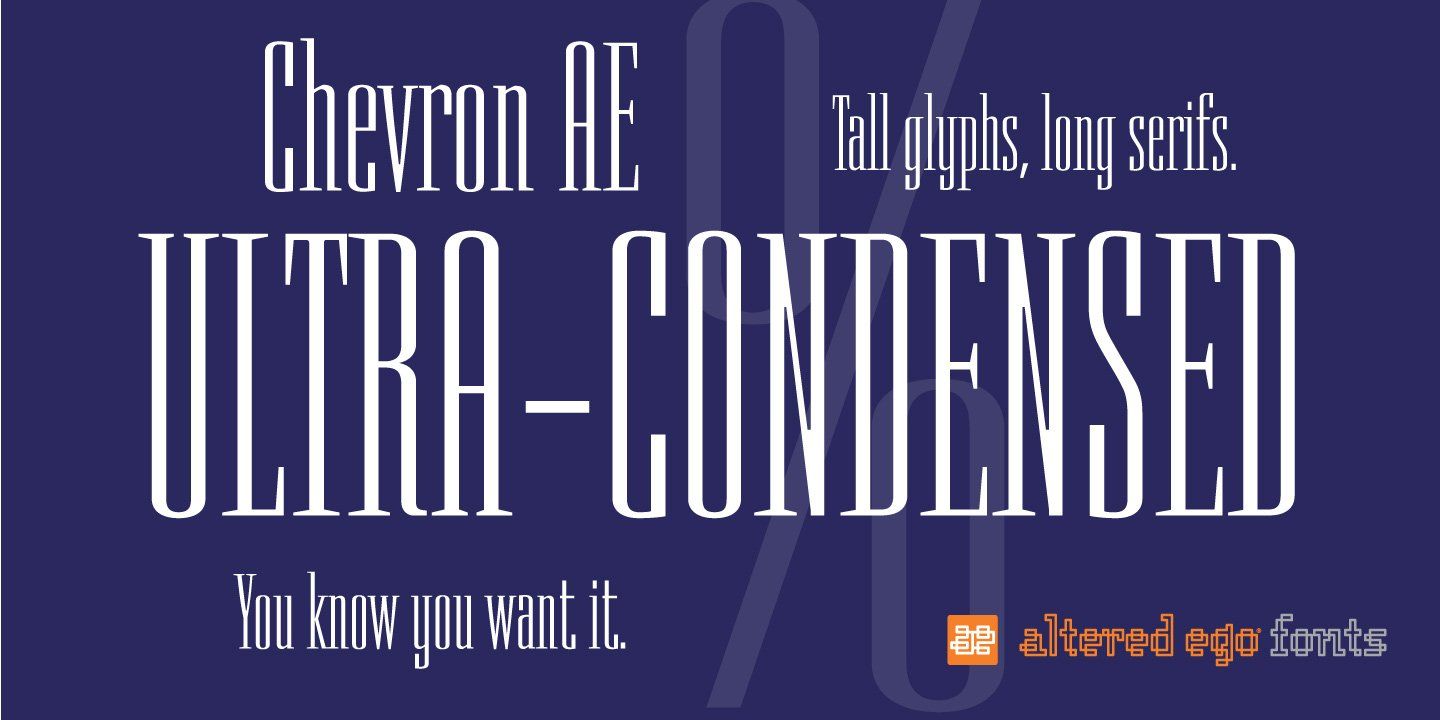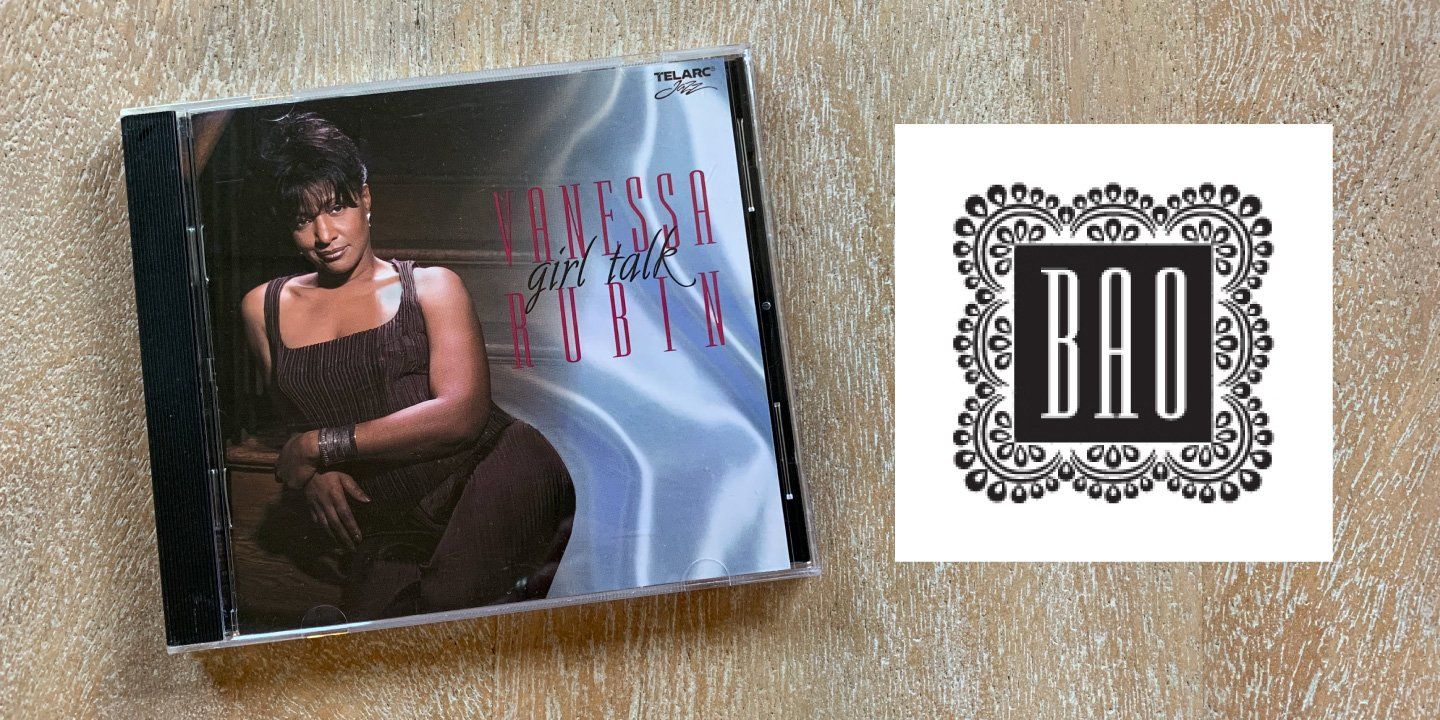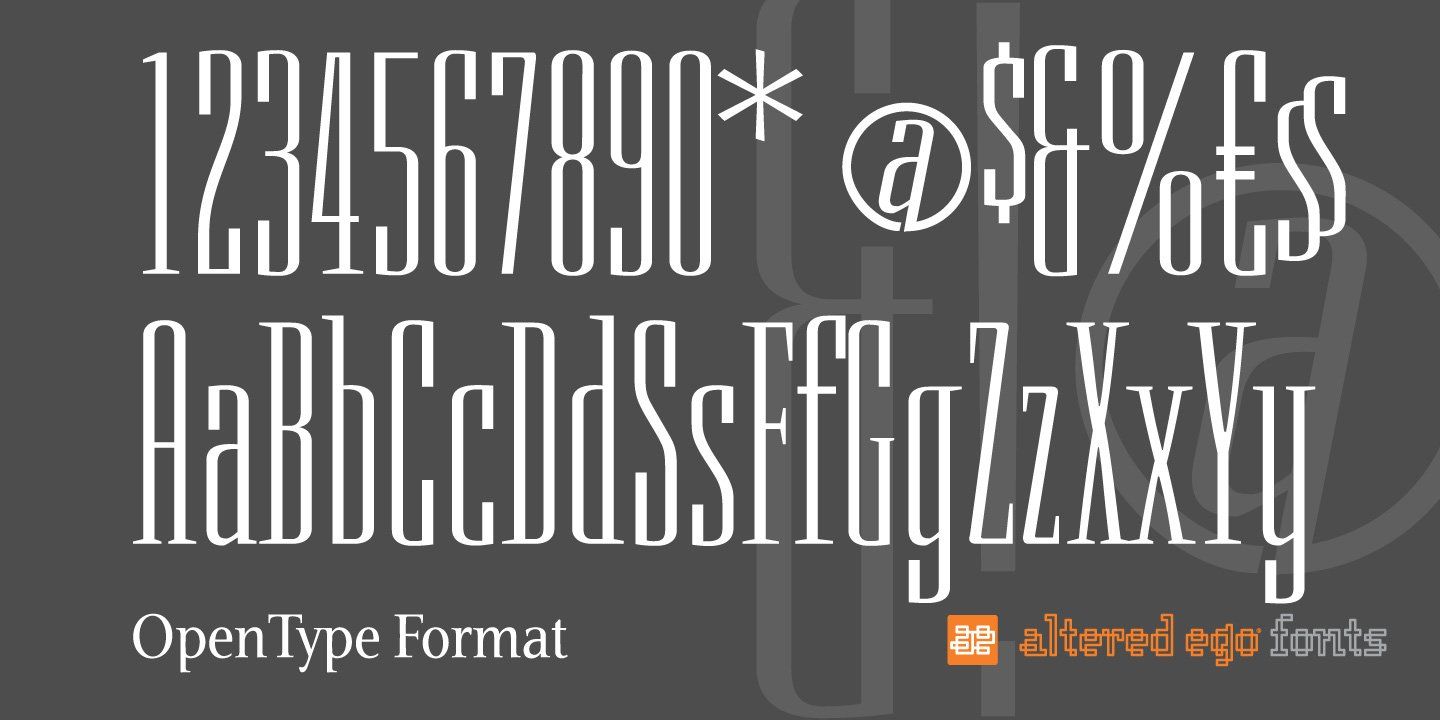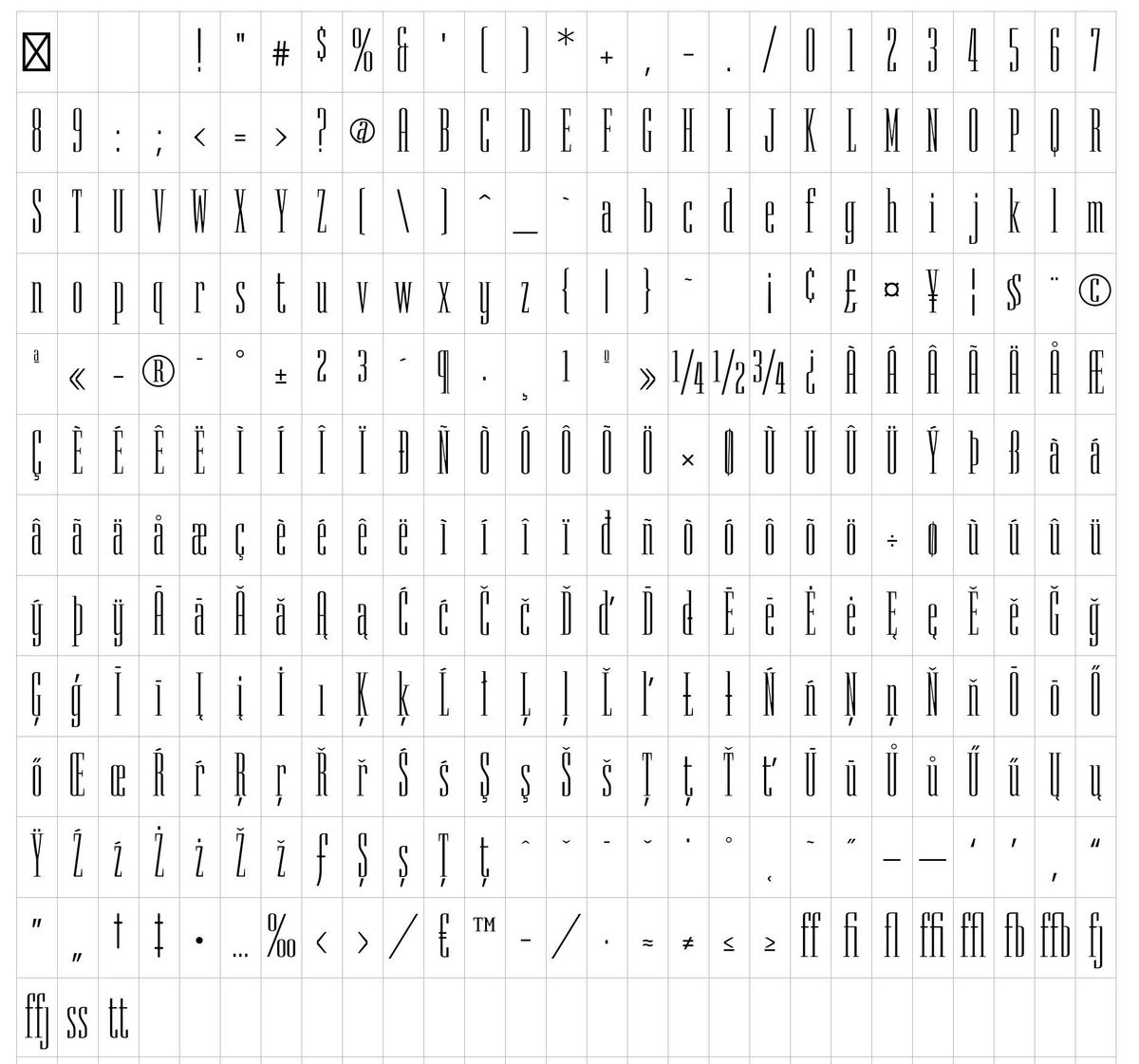
Altered Ego Chevron Font
Ultra-condensed serif typeface for packaging, publications, and branding
An ultra-condensed serif display font
Chevron is an ultra-condensed font that's great for books, packaging, movie posters and other designs that need a contemporary typeface, and when you don't have much room!
A Name Inspired by an iconic American Brand
Chevron AE is named after an heraldic symbol, and the shapes of the serifs reflect the distinctive chevron shape as well.
With its roots in art deco, try Chevron in places that demand an iconic typeface with chevron and wedge serifs.
How should you use it? It’s perfect for posters, packaging and advertising, CD covers and publications. Fully hinted and exquisitely kerned, Chevron will be one of your favorite faces for tall copy that need to get noticed. It’s really ideal for calendars, when you want big numbers without losing space for writing in the date fields.
Chevron AE is ultra-condensed
Who uses the Chevron AE font?
Altered Ego Chevron is preferred by recording companies that include Sony Music, Telarc Records, and Concord.
Chevron AE is ideal for calendars, which is why American Greetings chose it for custom calendards